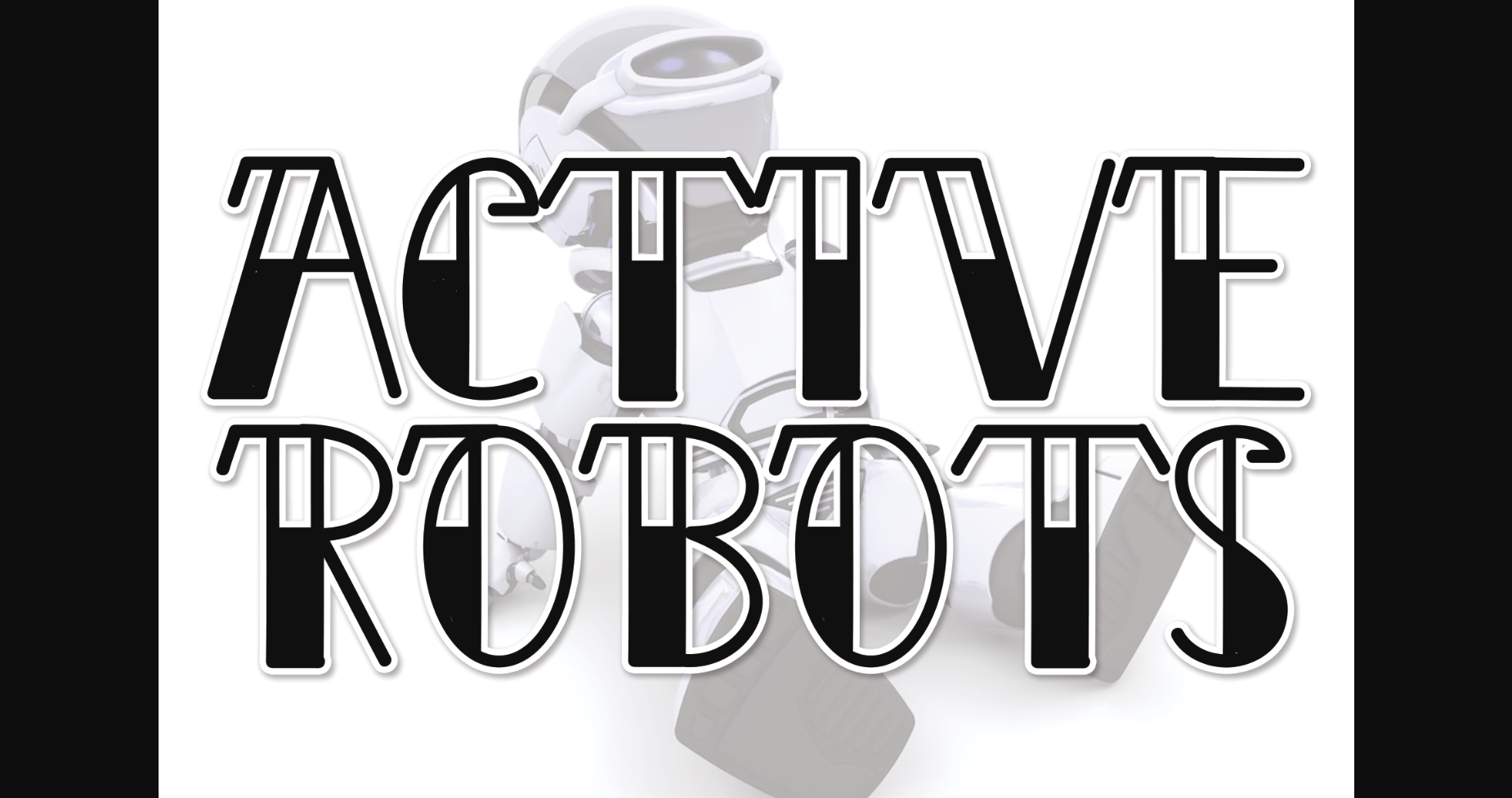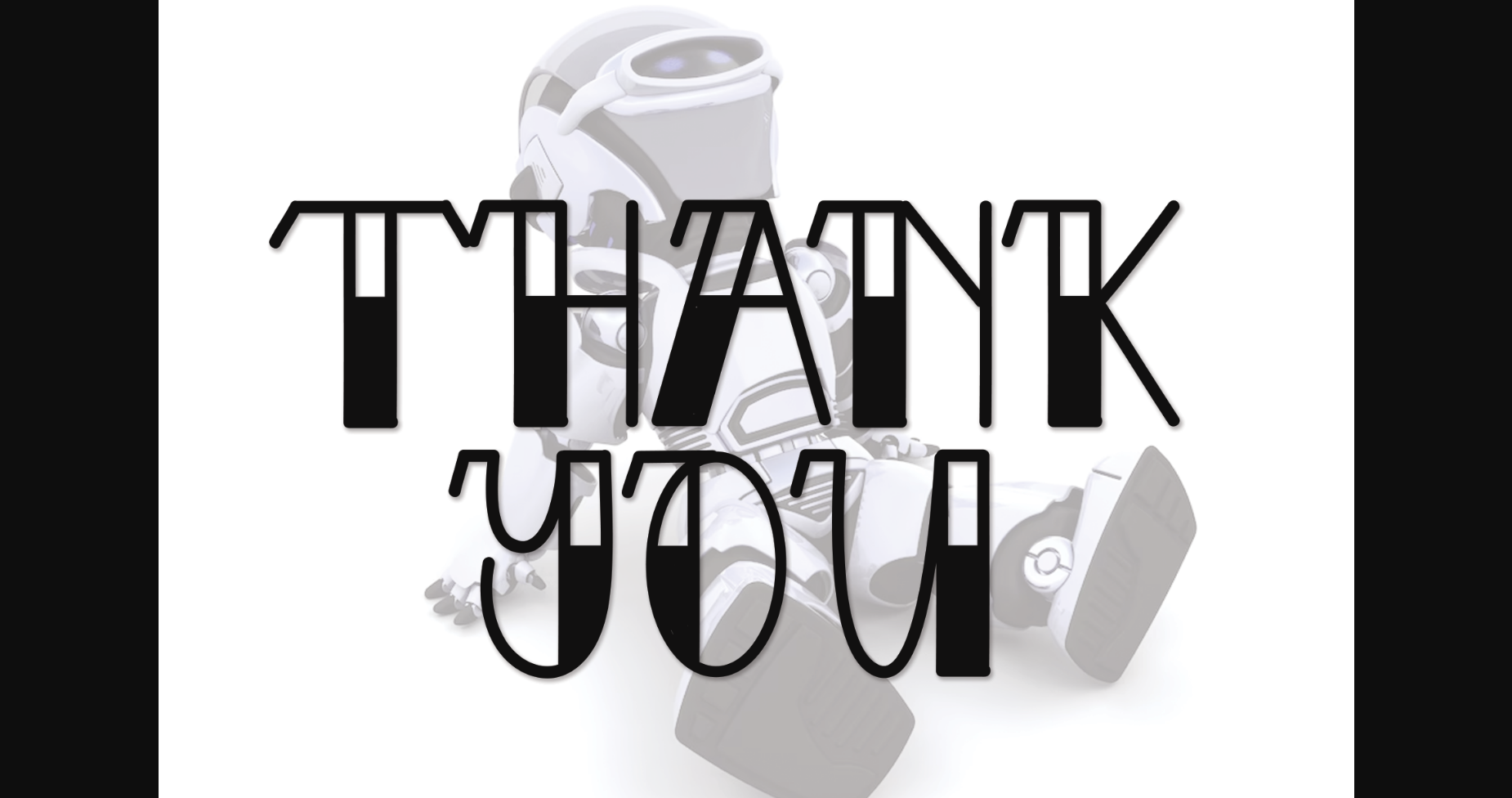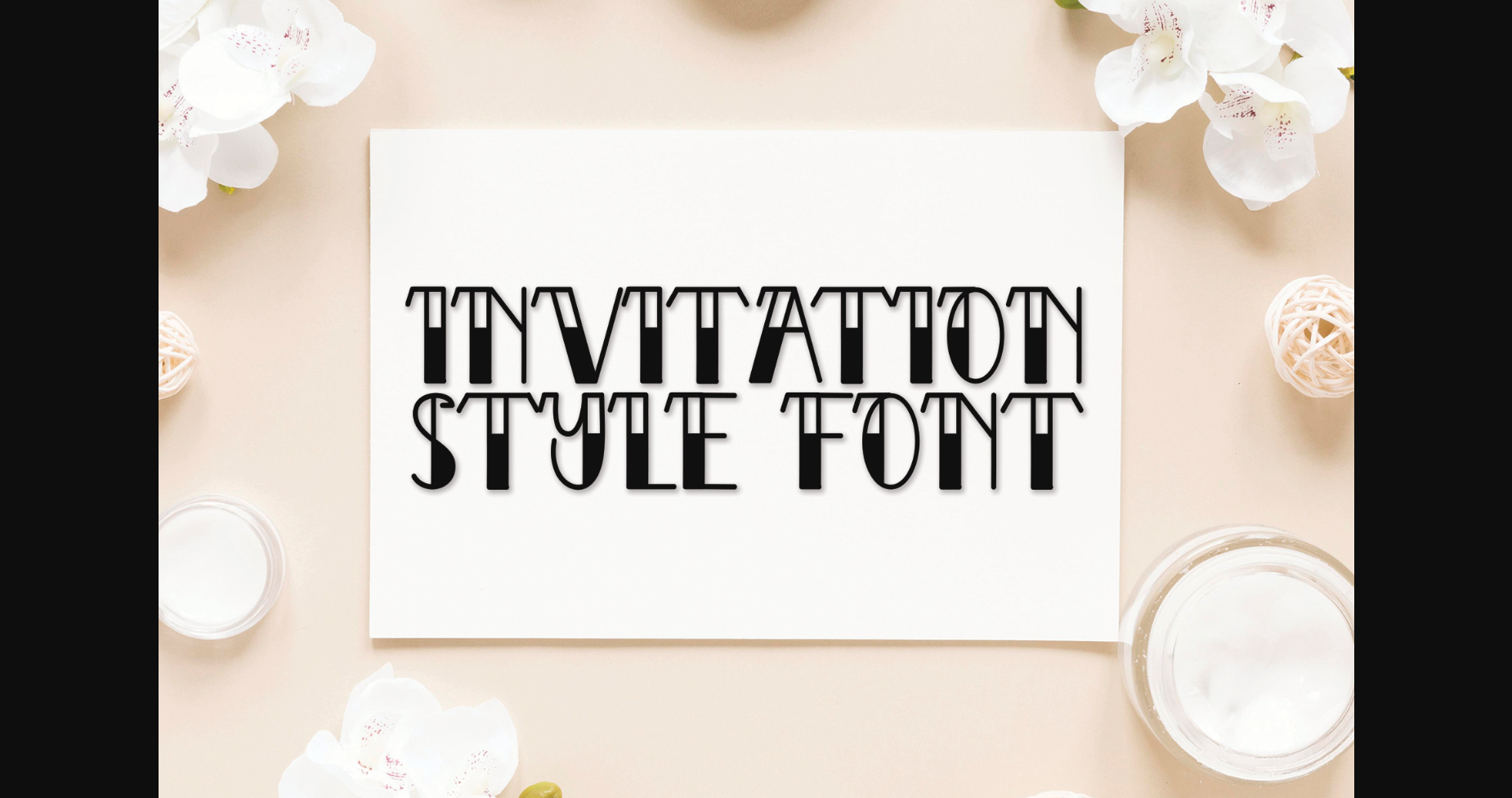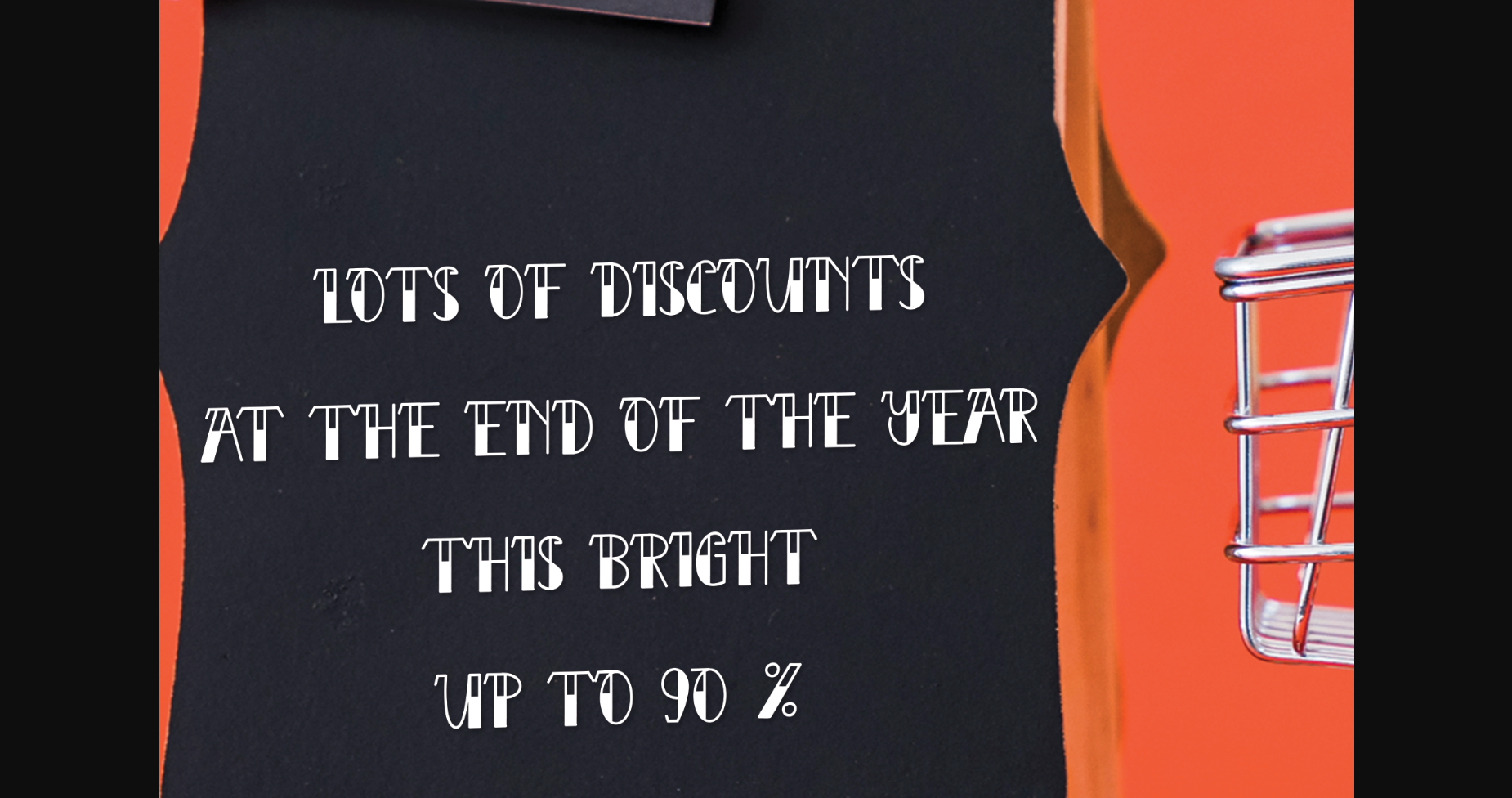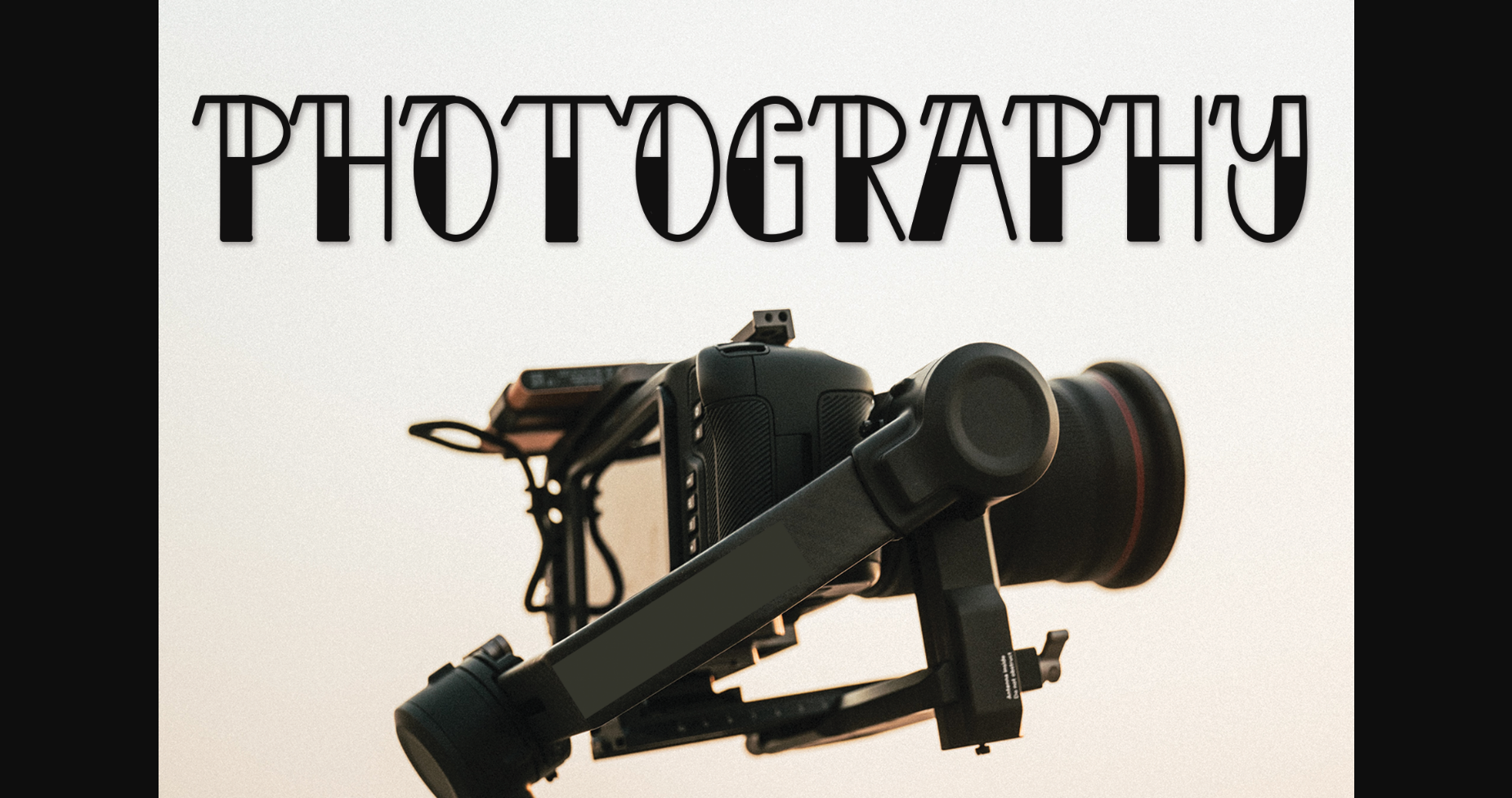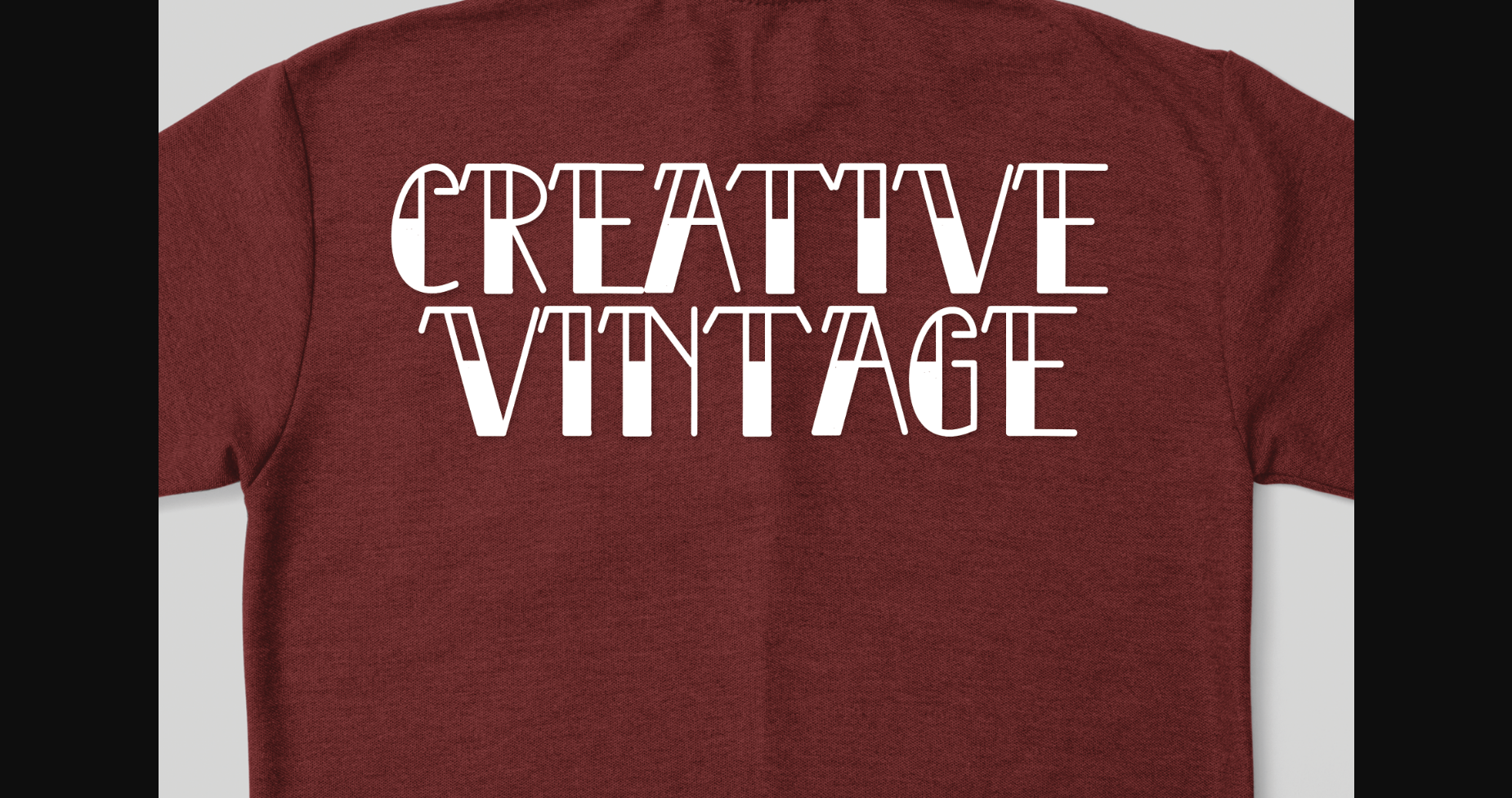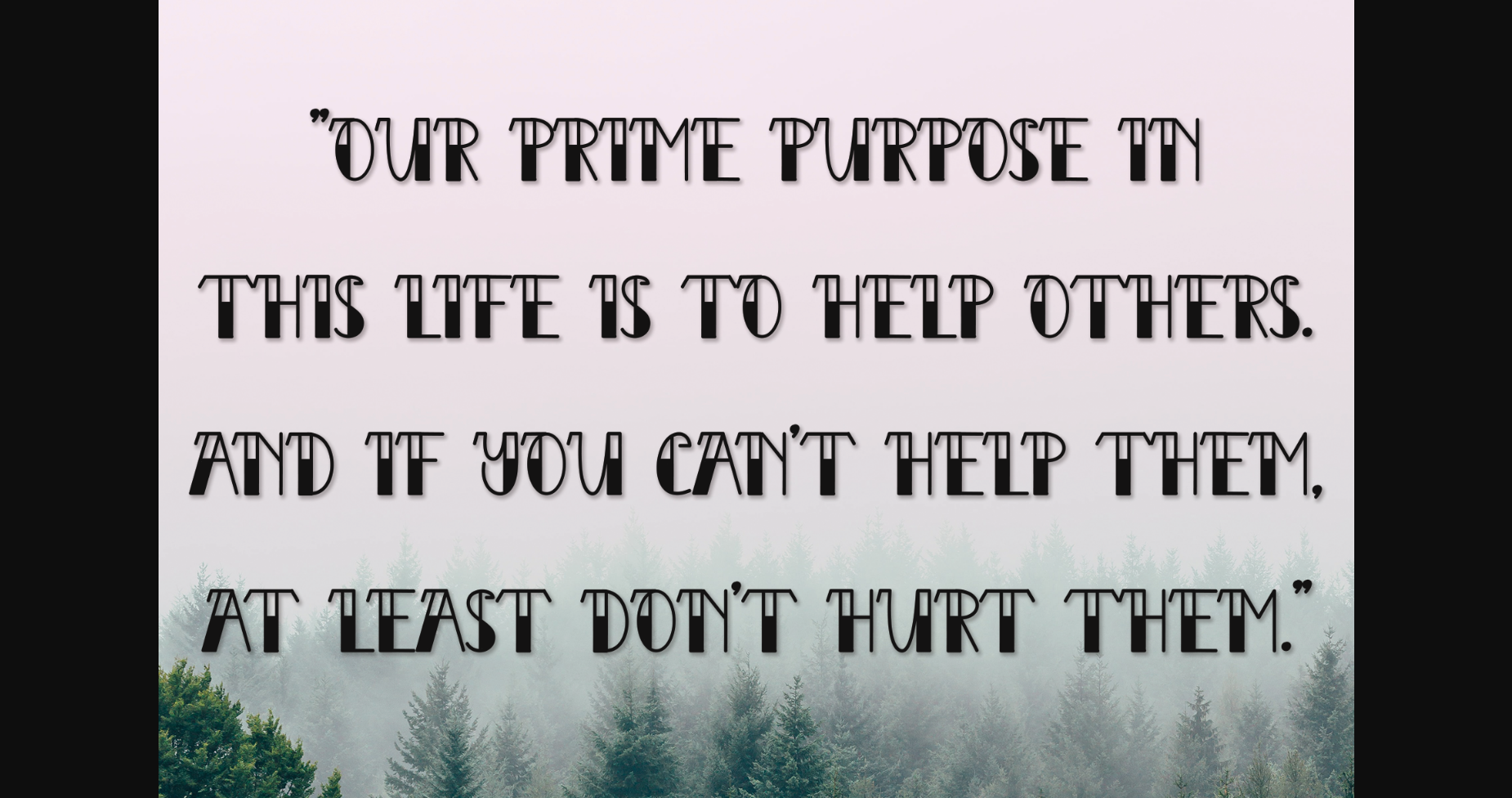
HomeSans Serif FontsActive Robots Font Sans Serif Fonts Active Robots Font FacebookXPinterestWhatsApp 1 of 10 ... Active Robots Font Poster 2... Active Robots Font Poster 3... Active Robots Font Poster 4... Active Robots Font Poster 5... Active Robots Font Poster 6... Active Robots Font Poster 7... Active Robots Font Poster 8... Active Robots Font Poster 9... Active Robots Font Poster 10... About Active Robots Font This Active Robots font is perfect for wall displays, wedding invitations, social media post logos, advertisements, product packaging, product designs, labels, photography, watermarks, invitations, stationery and much more. DOWNLOAD NOW People also explored Autumn Font Milady Font Azalea Font Flashlight Script Font Gingerline Gerbera Font Cherry Blossom Script Font Sakura Font Marker and Paper Font 265 0 TagsActive Robots Font Previous articleBoom FontNext articleDisans Font LEAVE A REPLY Cancel reply Comment: Please enter your comment! Name:* Please enter your name here Email:* You have entered an incorrect email address! Please enter your email address here Website: Save my name, email, and website in this browser for the next time I comment. Personal Use Free Sunbright Font Personal Use Free Read more about this font Shelly Personal Use Free Read more about this font Calling Personal Use Free Read more about this font Good Mood Personal Use Free Read more about this font BLOG Free Fonts Risk: Why Free Fonts Can Be Dangerous for Designers Free Fonts Risk: Why Free Fonts Can Be Dangerous for Designers Using free fonts is a common practice in web and graphic design. However, the... Free vs Paid Fonts: Why Investing in Premium Fonts Is Worth It 5 Fonts That Will Dominate Design Trends in 2026 Exploring Font Trends